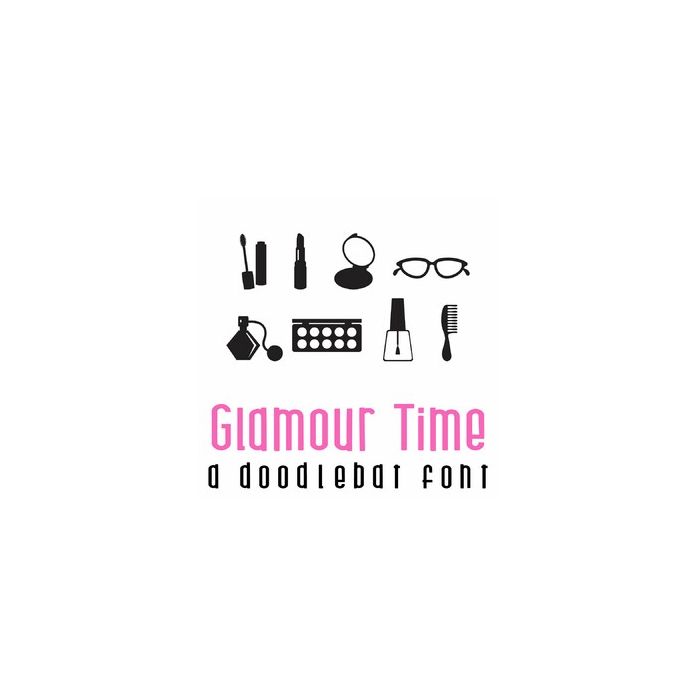
This fun doodlebat font features 26 glamour and makeup silhouettes. Perfect for cards, crafts, gifts, decor, scrap book pages, planner stickers and more!